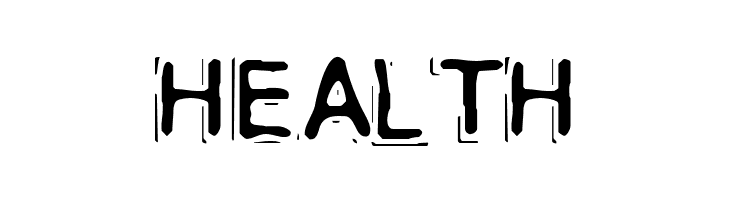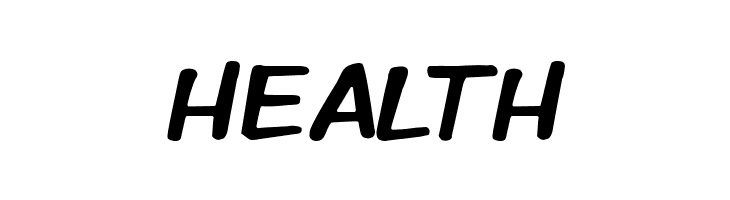
A bold, playful font with rounded edges and a hand-drawn style.
A bold, playful italic font with rounded, flowing characters.
A bold, modern sans-serif font with smooth, rounded edges and a clean appearance.
A playful, casual handwritten font with uneven strokes and a natural flow.
A bold, brushstroke-style font with dynamic, hand-painted characteristics.
A bold, playful font with a 3D shadow effect and cartoonish style.
A bold, playful font with a cartoonish, three-dimensional style.
A futuristic, alien-like script with smooth curves and sharp angles, perfect for sci-fi themes.
A bold, futuristic font with angular, geometric characters.
A bold, expressive script font with dynamic, flowing letterforms.
A bold, textured font with a hand-drawn, artistic style.
A dynamic, handwritten-style font with slanted, energetic letterforms.
A bold, handwritten font with a dynamic and energetic style.
A bold, italic, and handwritten-style font with a dynamic and expressive appearance.
A bold, italicized handwritten font with a dynamic and energetic style.
A playful, rounded font with bold, smooth curves.
A fluid, cursive font with a handwritten charm and seamless character connections.
A playful, informal handwritten font with a casual and approachable style.
A playful, rounded font with a whimsical and friendly style.
A bold, angular font with a futuristic and energetic design.
A playful, artistic display font with a chaotic, hand-drawn style.
A bold, geometric font with a futuristic and industrial design.
A bold, jagged font with a dripping effect, perfect for dramatic and intense designs.
A bold, geometric font with high contrast and a modern, avant-garde style.
A bold, geometric font with high contrast and angular serifs.